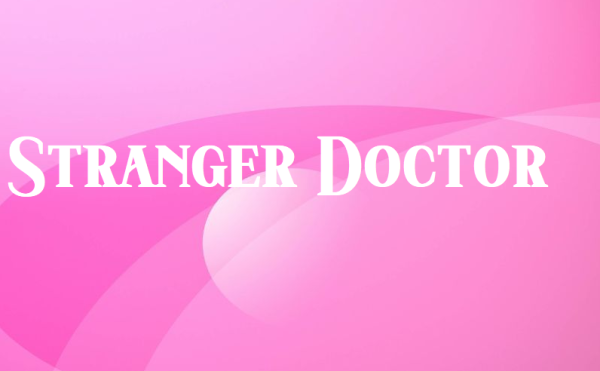
Stranger Doctor Font
Stranger Doctor Font, a serif vintage font. It’s perfect for branding, product packaging, invitations, quotes, t-shirts, labels, posters, or any logo you want to develop. Make all your design projects more attractive, and take your designs to the next level with Manny!